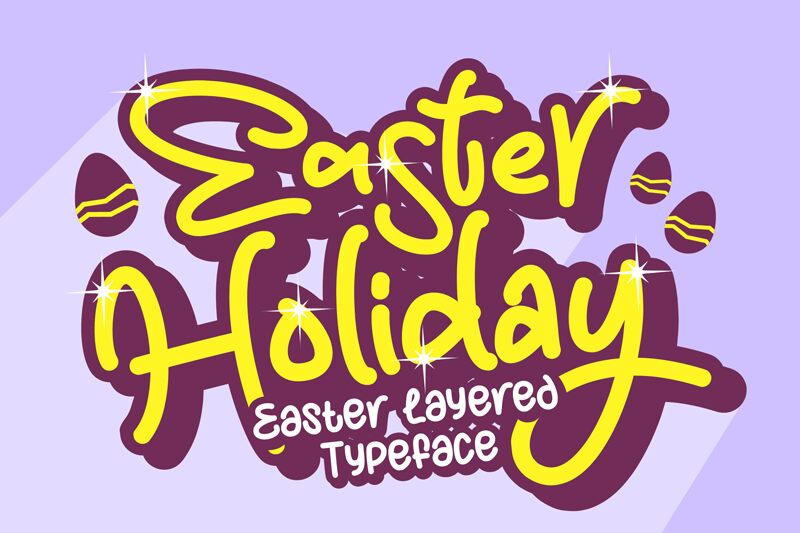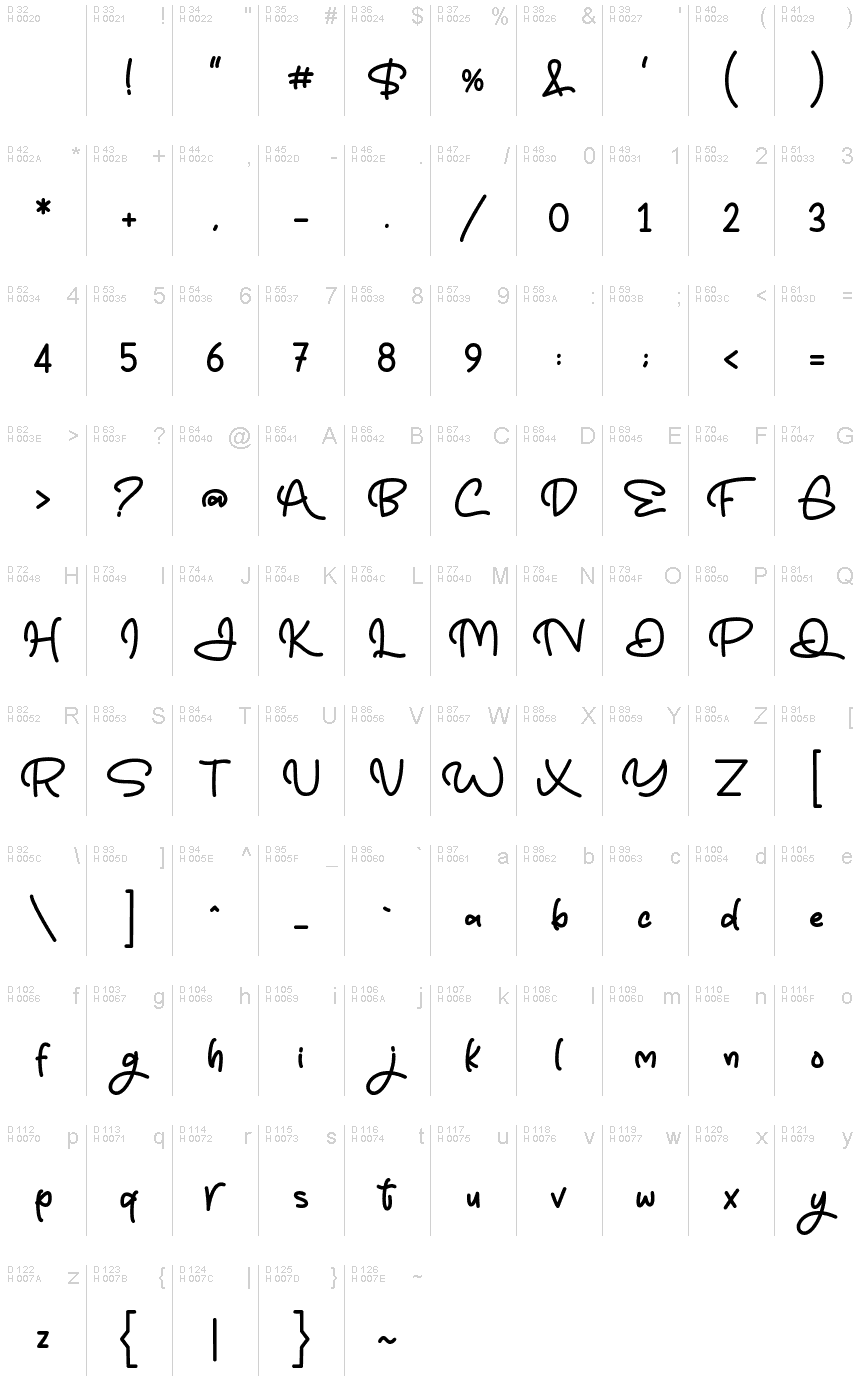
Easter Holiday Regular
Holiday is a delightful handwritten font designed by Mabhal Studio. With its semi-light weight and playful curves, this font exudes a whimsical charm that is perfect for various creative projects.
Its handwritten style adds a personal touch to invitations, greeting cards, and scrapbooking projects. The layered feature of Easter Holiday allows for endless customization options, making it ideal for designing posters, flyers, and social media graphics. Whether you're planning an Easter-themed event or simply want to add a touch of joy to your designs, Easter Holiday is the font that will bring your ideas to life.